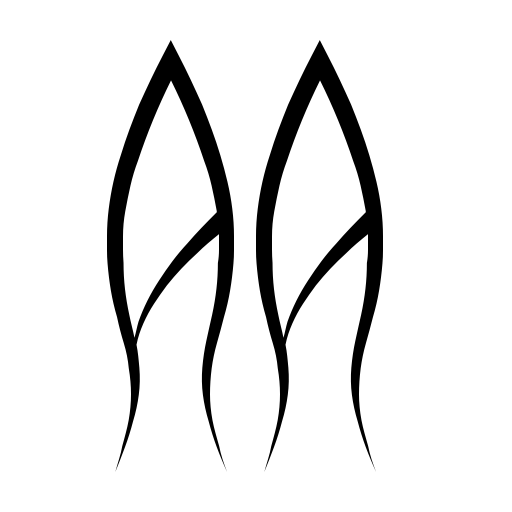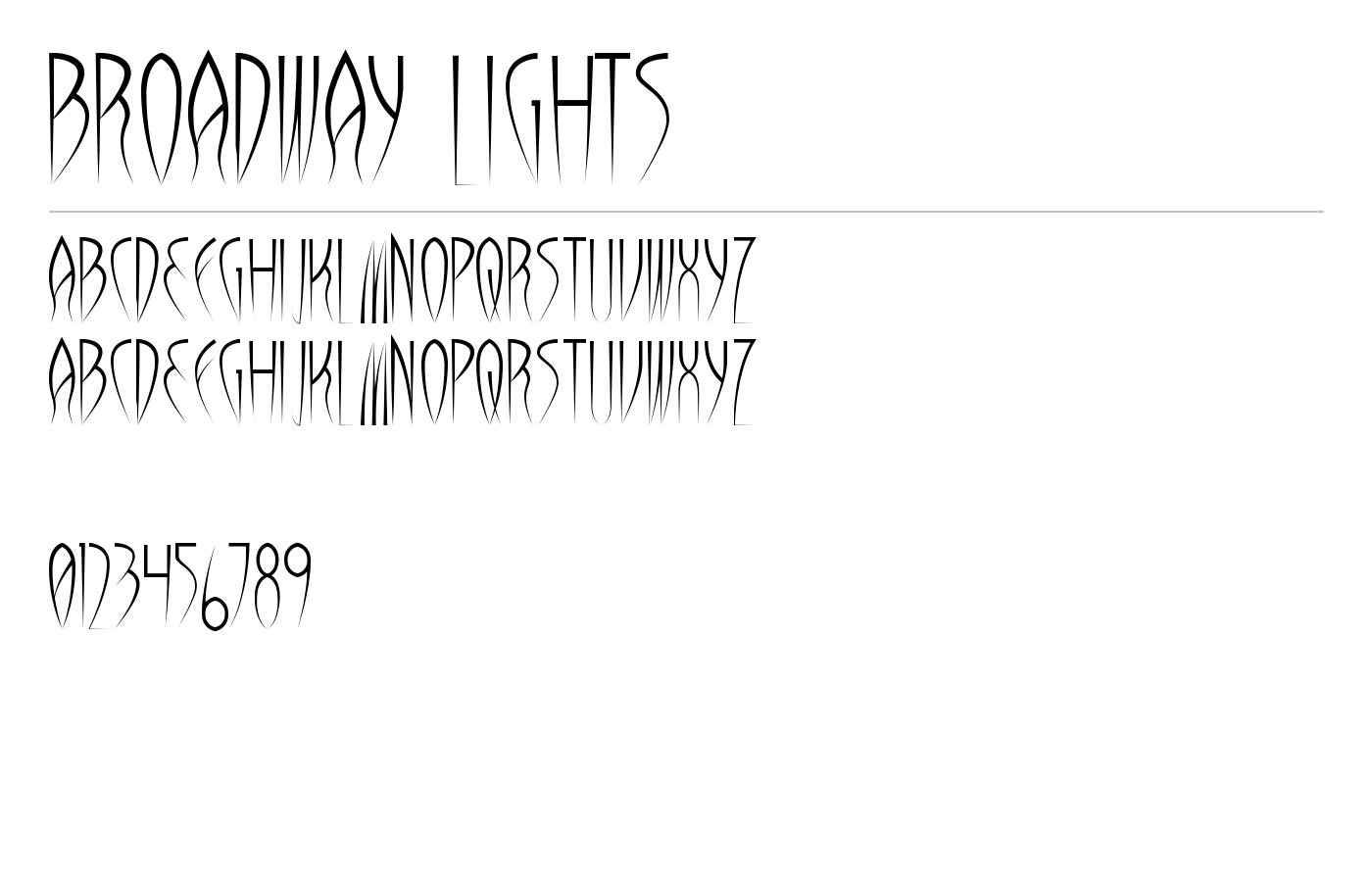
Broadway Lights is a tall, narrow sans serif display font with a striking, theatrical style reminiscent of vintage Broadway signage. Its high contrast between thin, sharp strokes and occasional thicker segments creates an elegant yet dramatic flair, making it ideal for eye-catching headlines and creative branding. This font works best in contexts where a bold, artistic statement is needed, such as event posters, entertainment logos, and stylish editorial designs.
Broadway lights Font
About Broadway lights Font